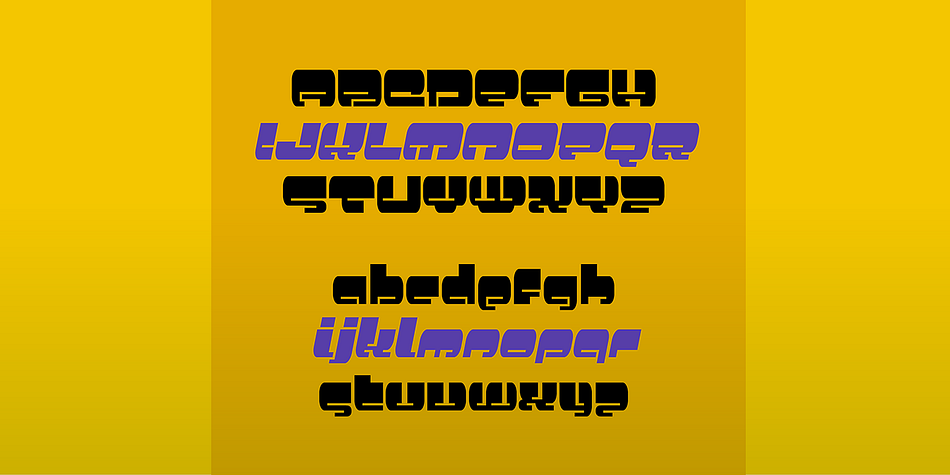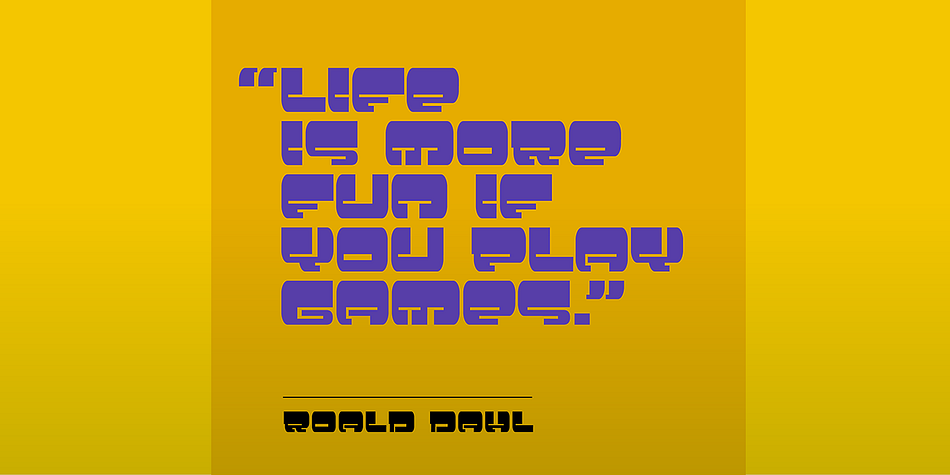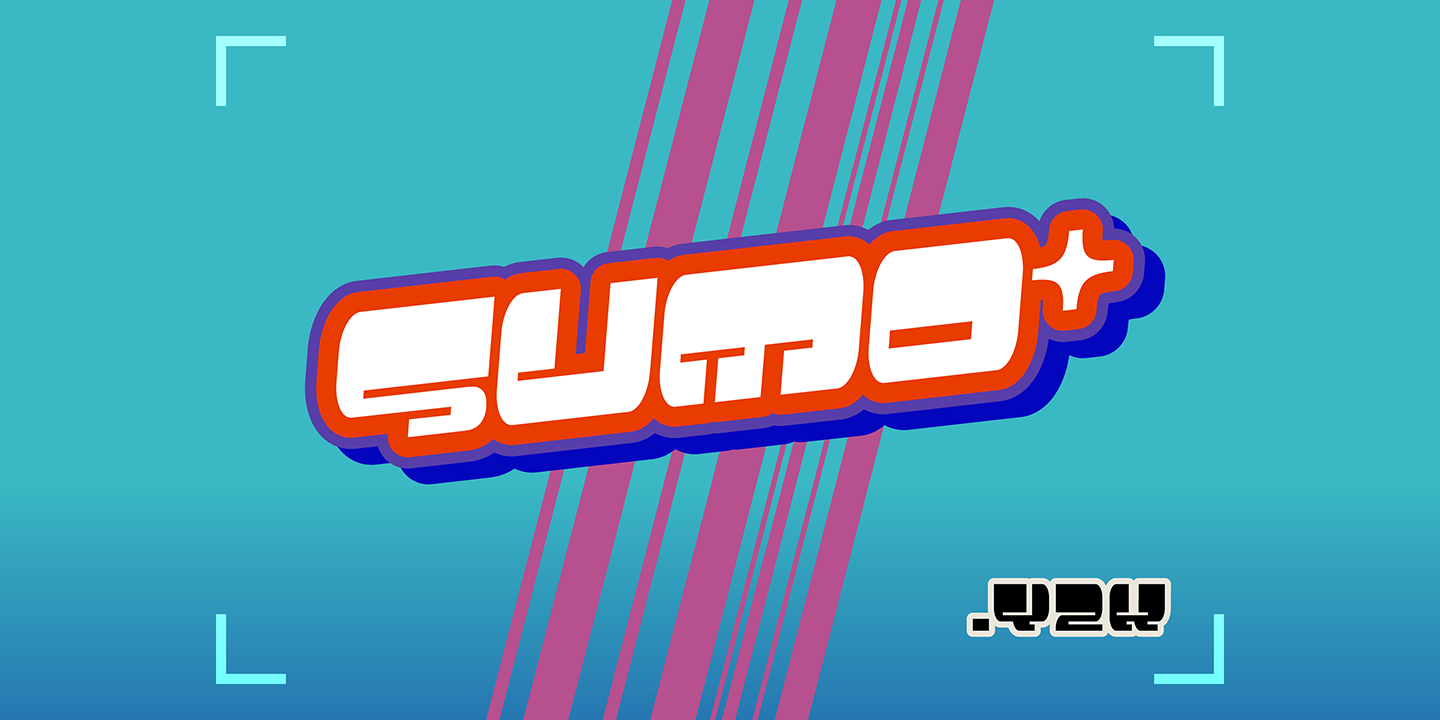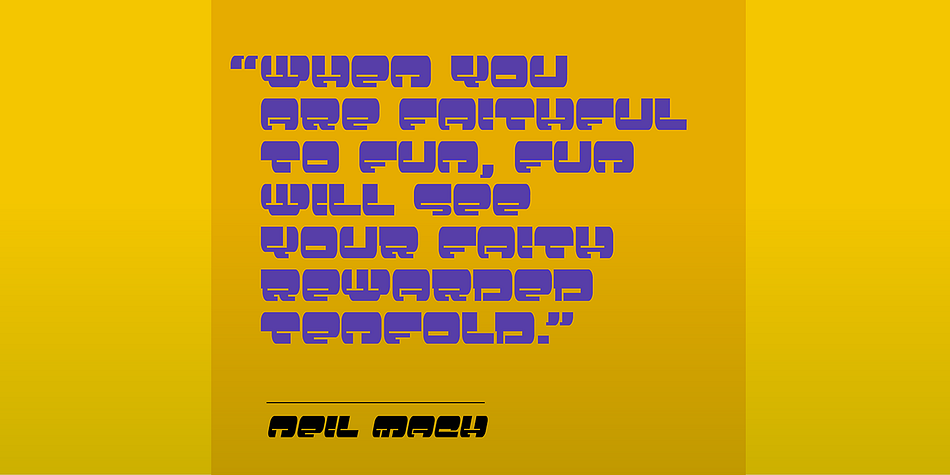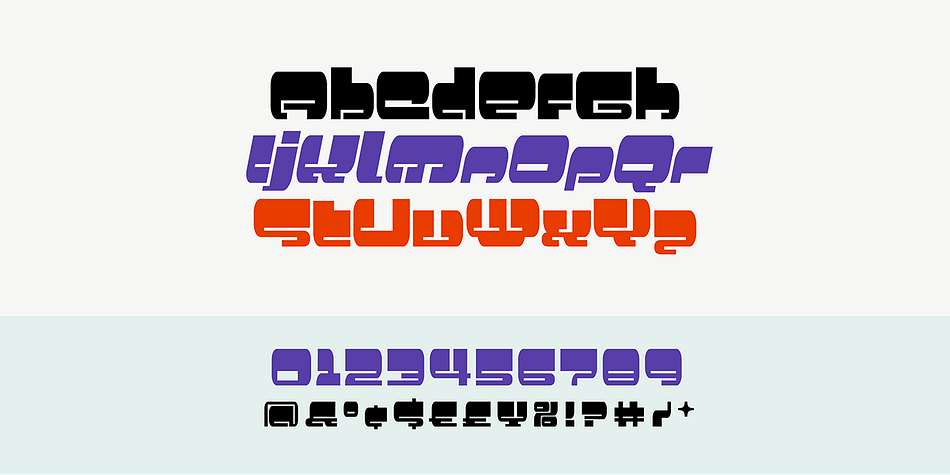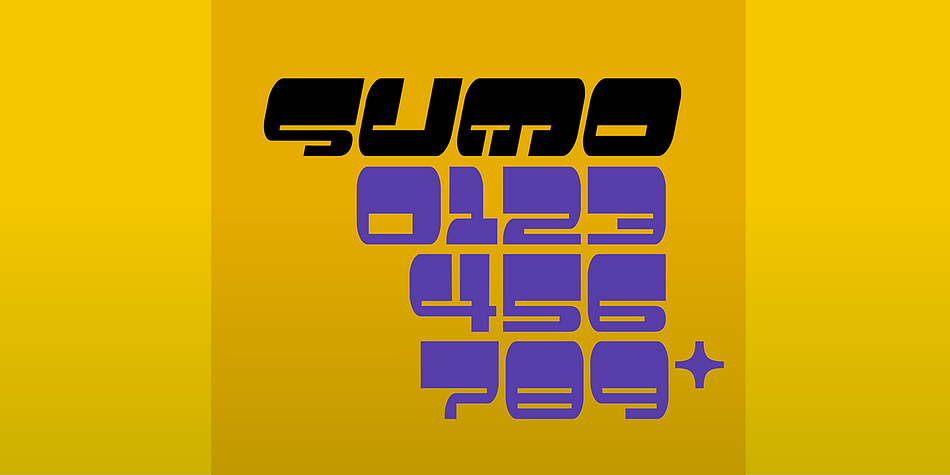
Designed by Craig Stainton, SB Sumo is a display font family. This typeface has two styles and was published by SelfBuild Type Foundry.
SB Sumo is a 90s themed y2k font.
• Contains Regular and Italic versions, with WOFF fonts for web use.
• SB Sumo contains 118 glyphs.
Designer | Craig Stainton |